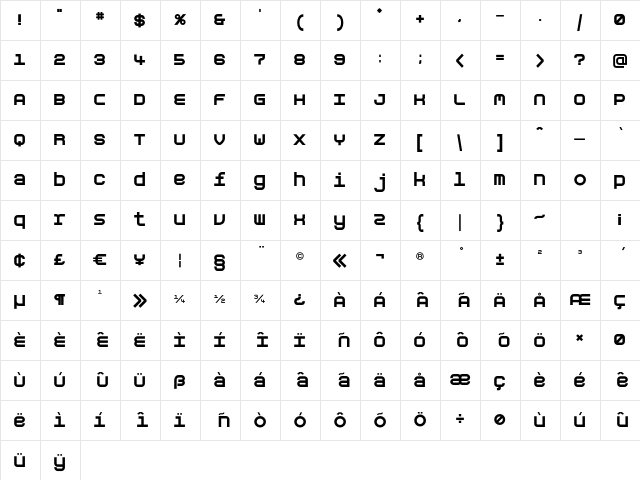
Complete Aspirin Overdose glyph index. Displaying only characters natively supported by Aspirin Overdose font.
Aspirin is a composed and adaptable typeface that performs quietly and consistently across a wide range of design contexts.